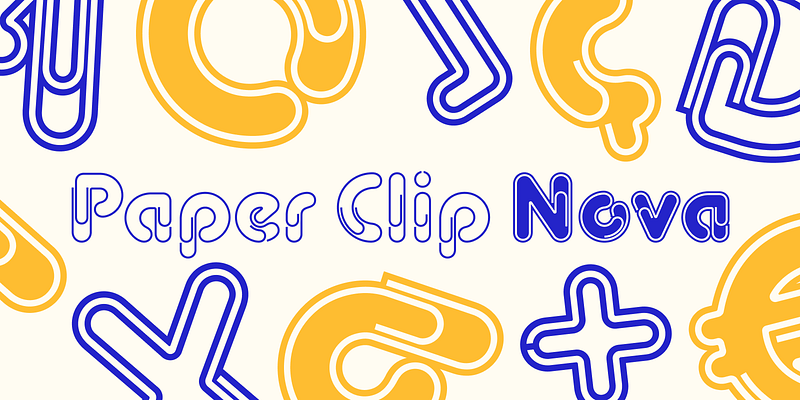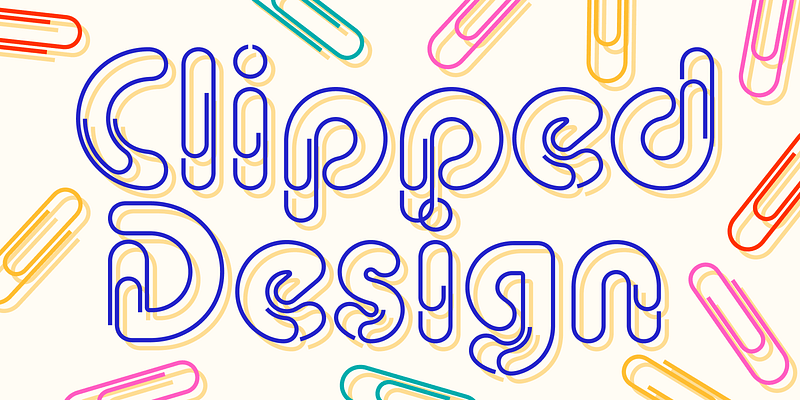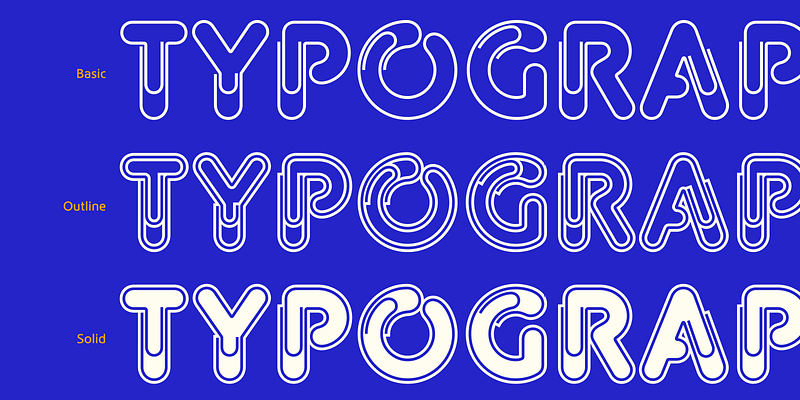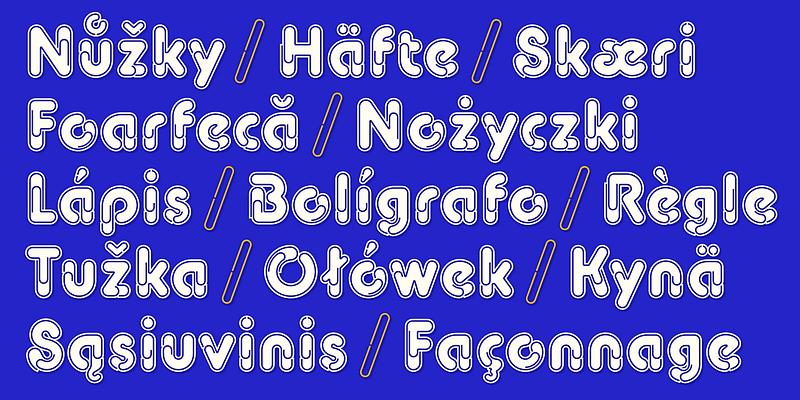
This typeface design is a redesign of ‘Paper Clip,’ which was originally sold by VGC (U.S.A.) after 1982, created by the original designer.
Through typeface designs, we aim to convey a meaning beyond the textual content. Typefaces that allow users to clearly convey their full meaning. Typefaces that both typesetters and readers will enjoy. These are the kind of typefaces that we aim to create.